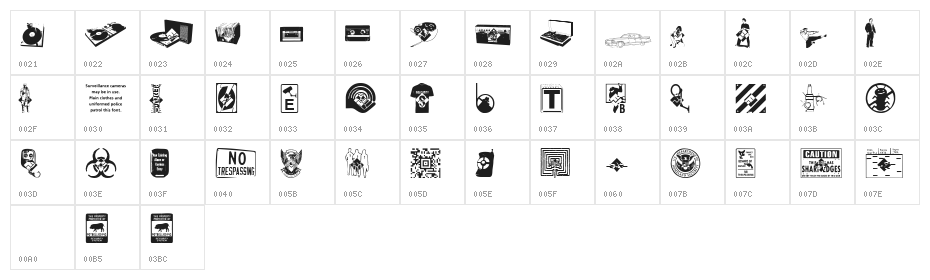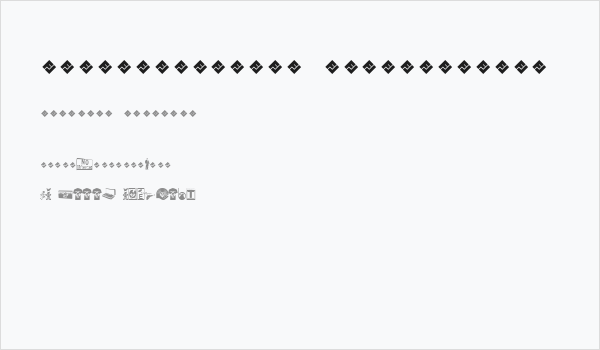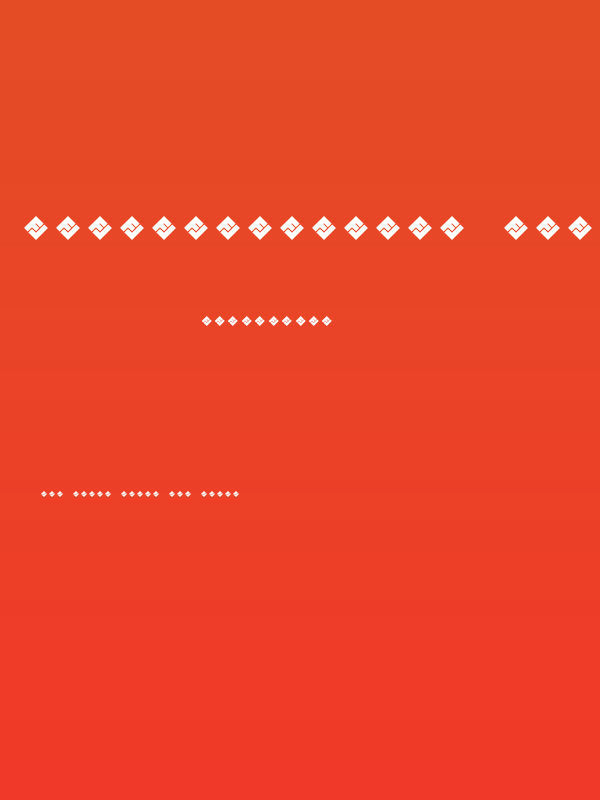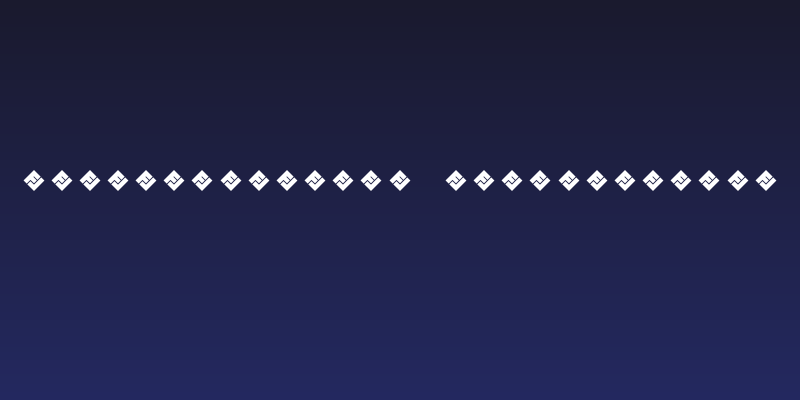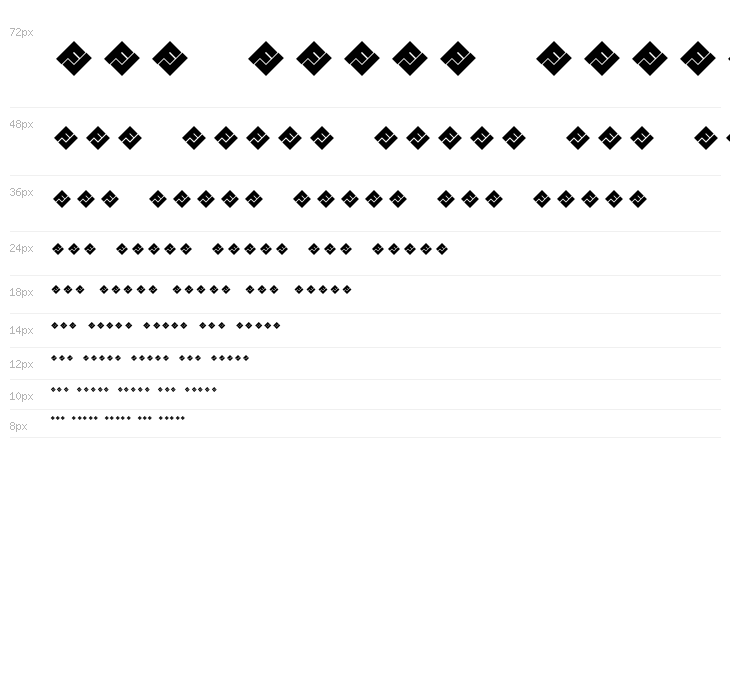
Hoironedymious Bloschindian Font
Hoironedymious Bloschindian Description
A decorative dingbat font featuring a mix of geometric symbols, pictograms, and illustrated icons related to surveillance, technology, and security themes. The glyphs include abstract shapes, cameras, police figures, and various objects, with some characters forming complex visual compositions.
Overall StyleDecorative, Thematic, Modern
Use CaseIllustrative elements, visual storytelling, thematic graphics, not for body text.
Proposed ProjectsPosters, editorial illustrations, zines, album covers, protest art, themed event graphics.